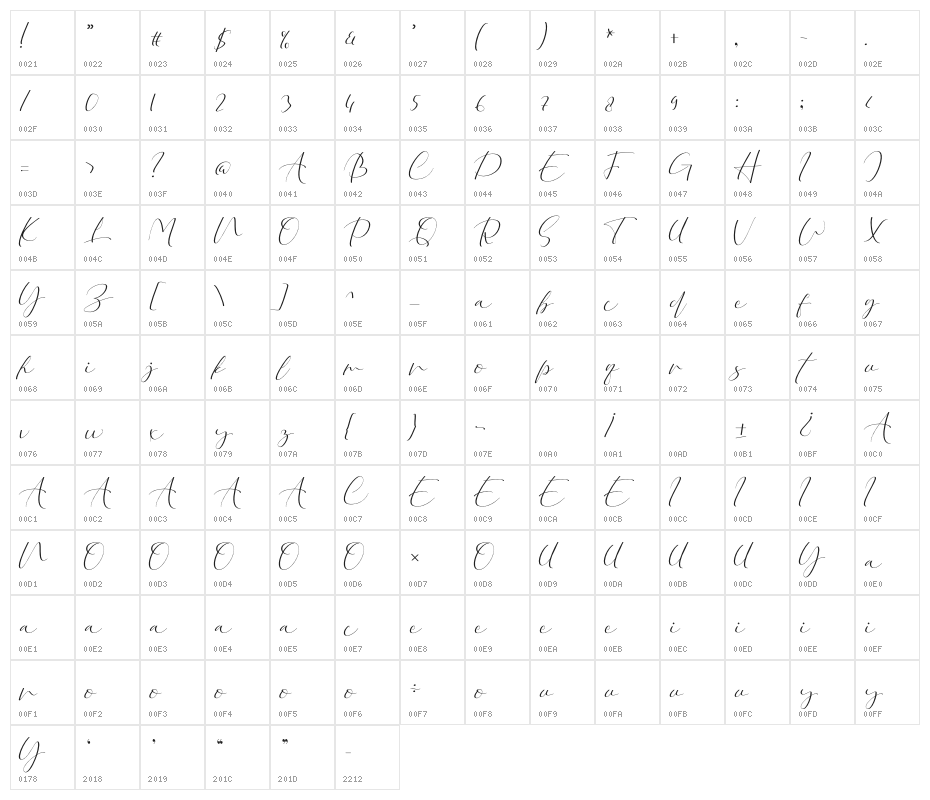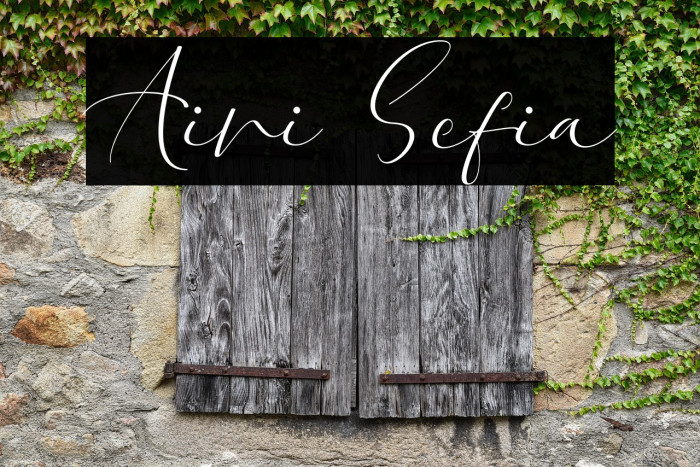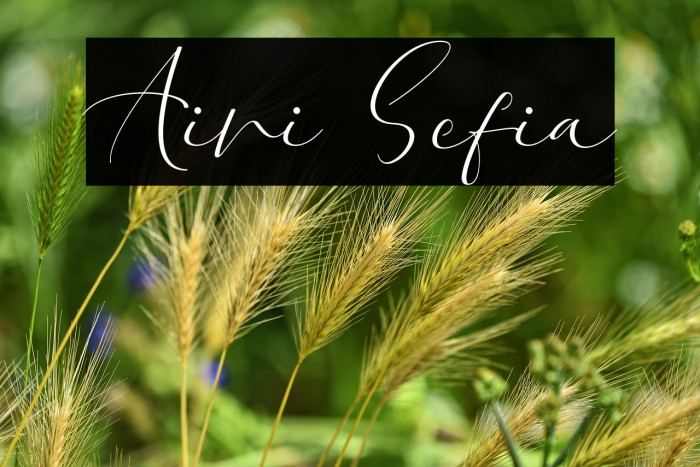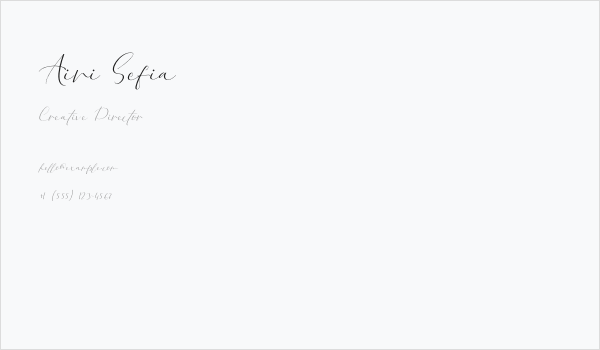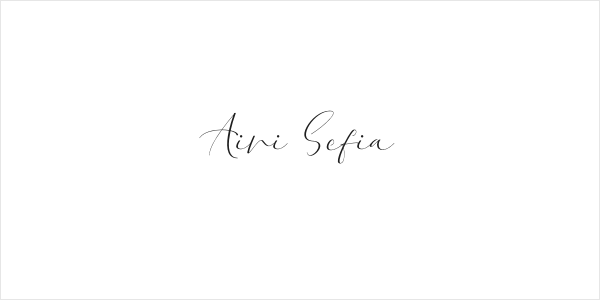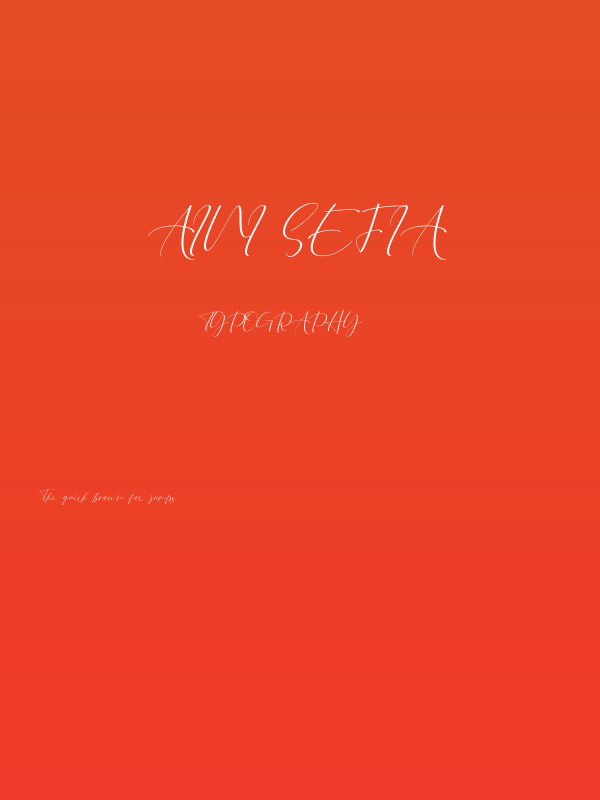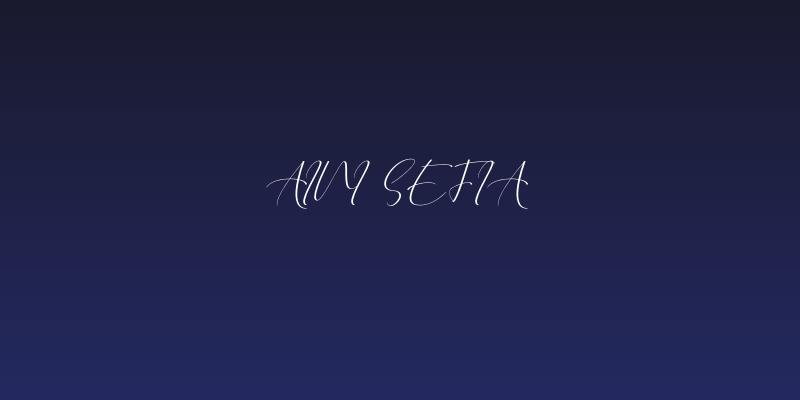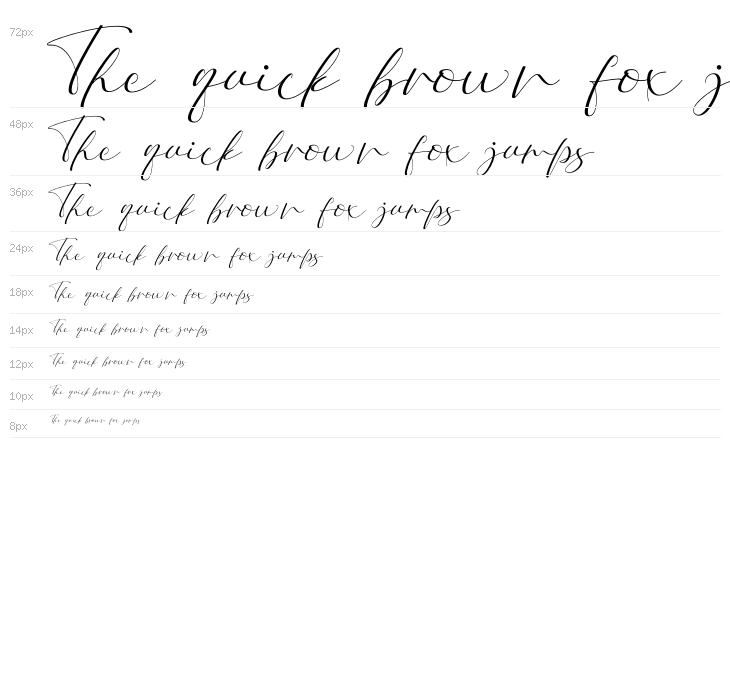
Aini Sefia Font
Aini Sefia Description
Elegant and flowing script font with a handwritten appearance, featuring smooth curves and a natural, fluid style.
| Proposed Projects | Wedding invitations, greeting cards, personal branding. |